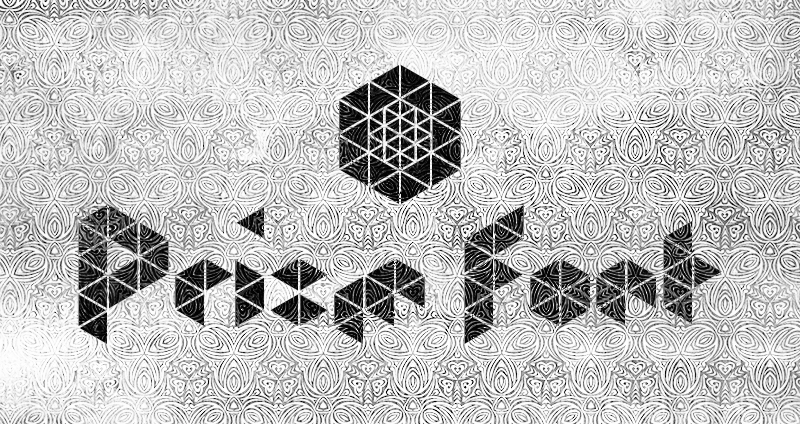
Preview and download Prism Font. Created by ErikYin in Techno Square styles with Free for personal use license.
Font name: | Prism |
Author: | ErikYin |
This is my first created alphabets font, inspired from my logo and prisms of kaleidoscope. & Thank you watching and used this! This font used commercially is USD$25 for a one time payment. You can pay this by my PayPal and I'll send you a License Agreement. more this font's photo: http://www.behance.net/gallery/Prism-Font/6749045 This font is free for personal use. If you want ommercial use or have any question plz contact me use eMail: erikin1205[at]gmail[dot]com My Page at - Behance: http://www.behance.net/erikyin Facebook: http://www.facebook.com/erikyin.art |